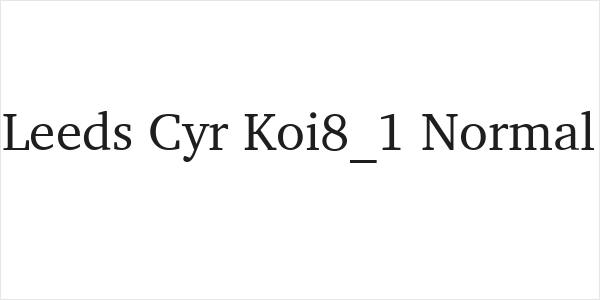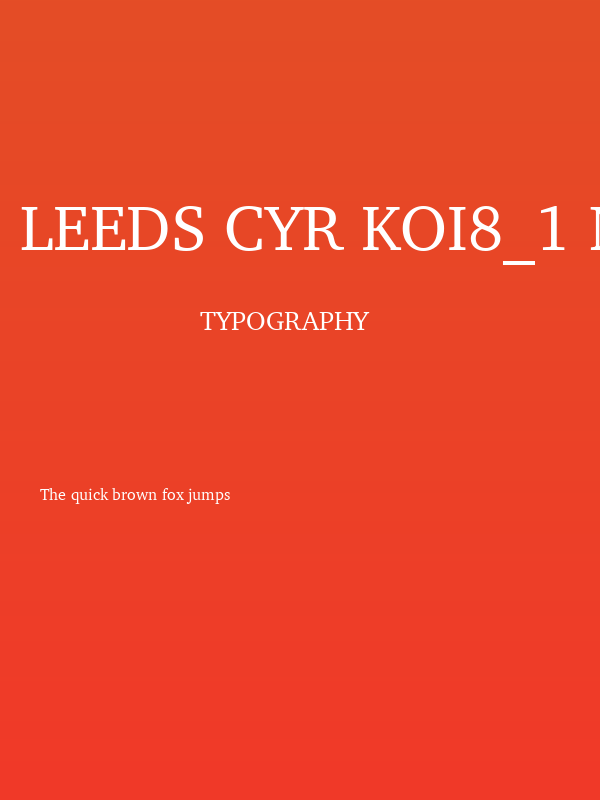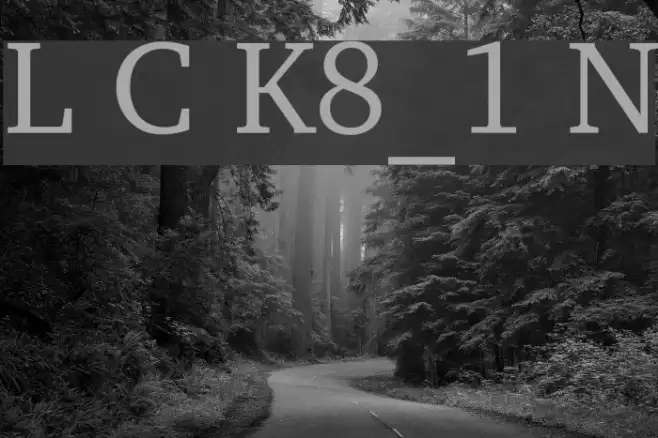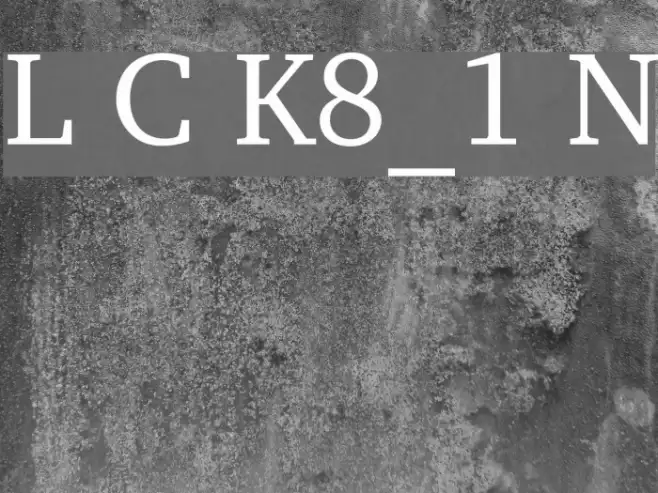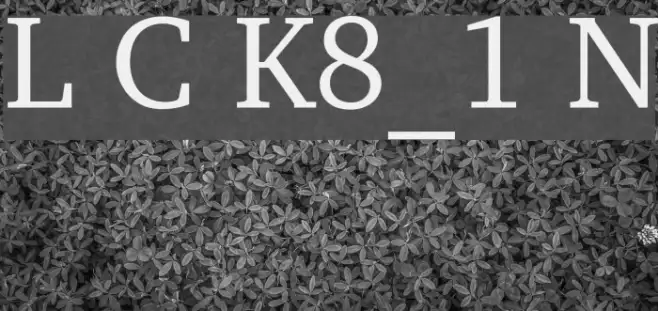
Leeds Cyr Koi8_1 Normal Font
Leeds Cyr Koi8_1 Normal Description
This serif font features a classic and elegant design, characterized by its clean lines and balanced proportions. The uppercase letters are bold and commanding, with a slight contrast in stroke thickness that adds to their readability. The lowercase letters maintain a consistent style, with rounded curves and a traditional serif flair. The numerals are clear and distinct, making them suitable for both display and text settings. Special characters are well-integrated, maintaining the overall aesthetic of the font. The font's timeless appeal makes it versatile for various design applications.